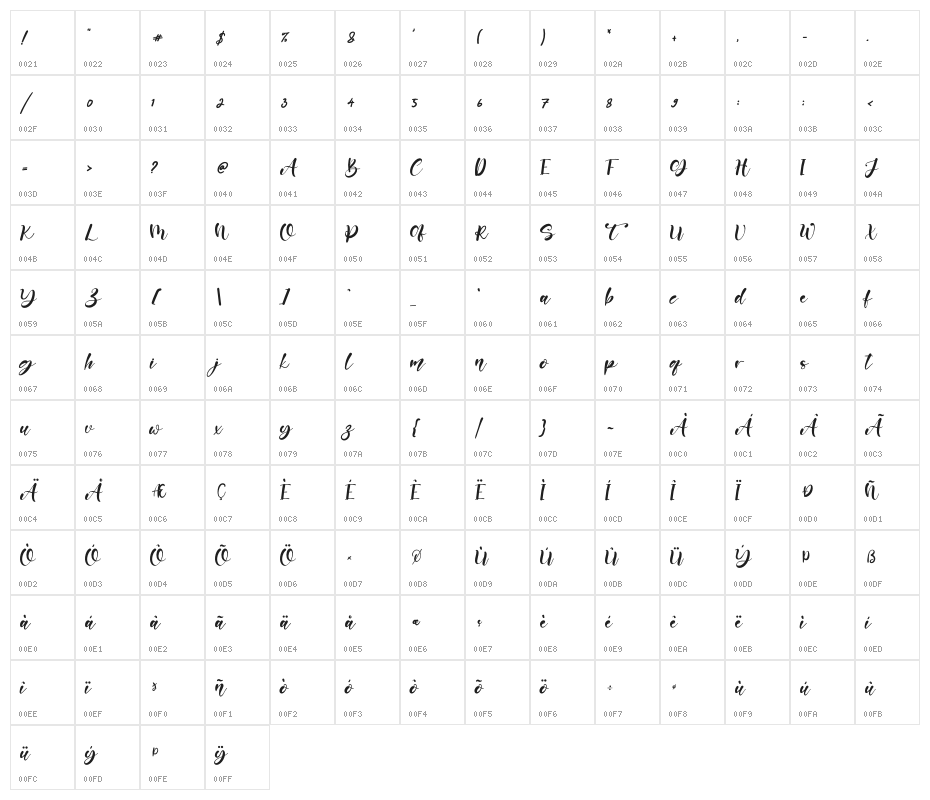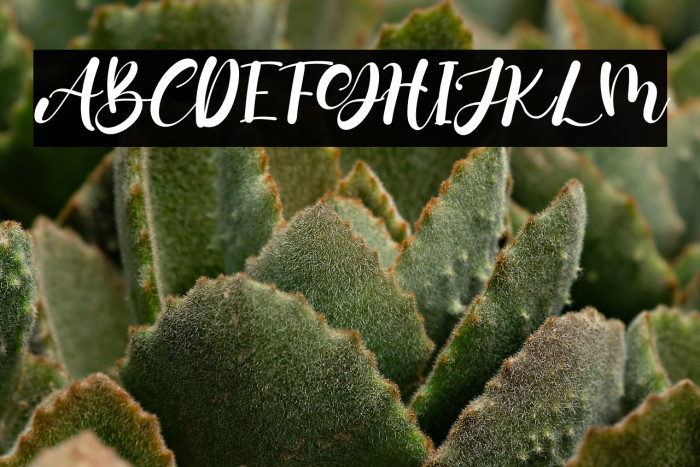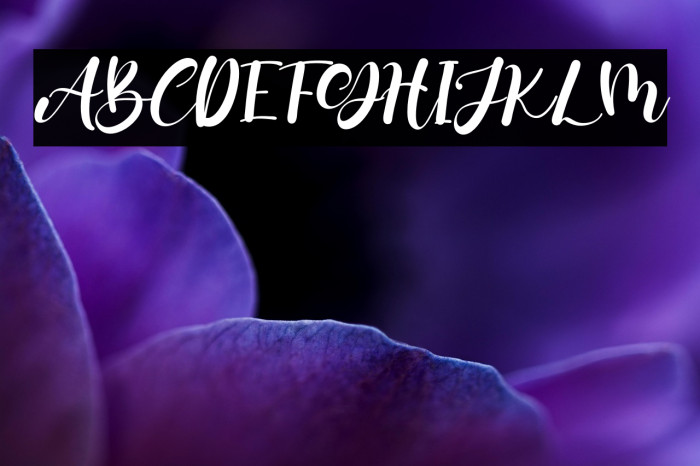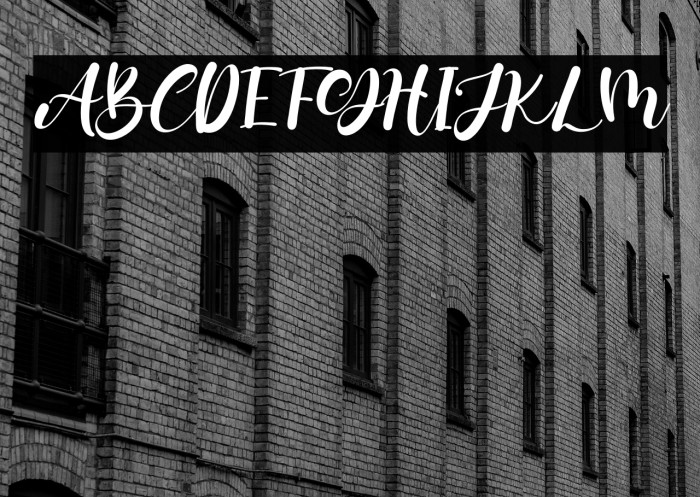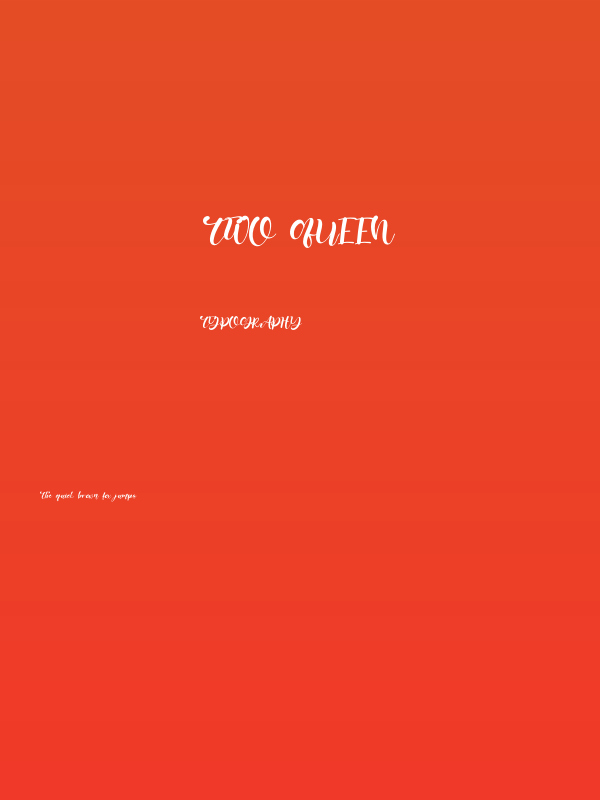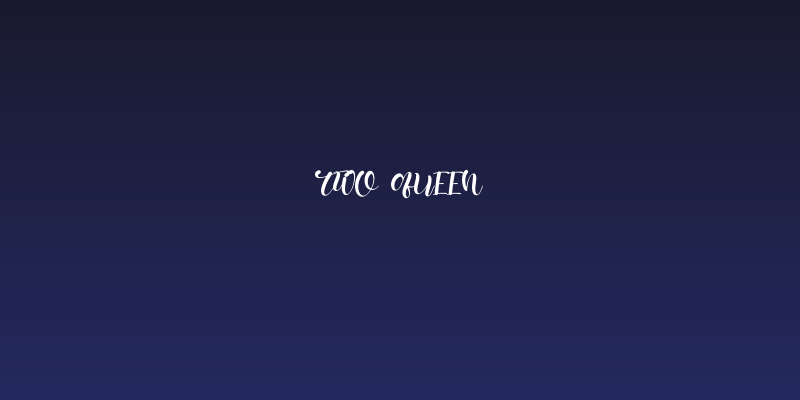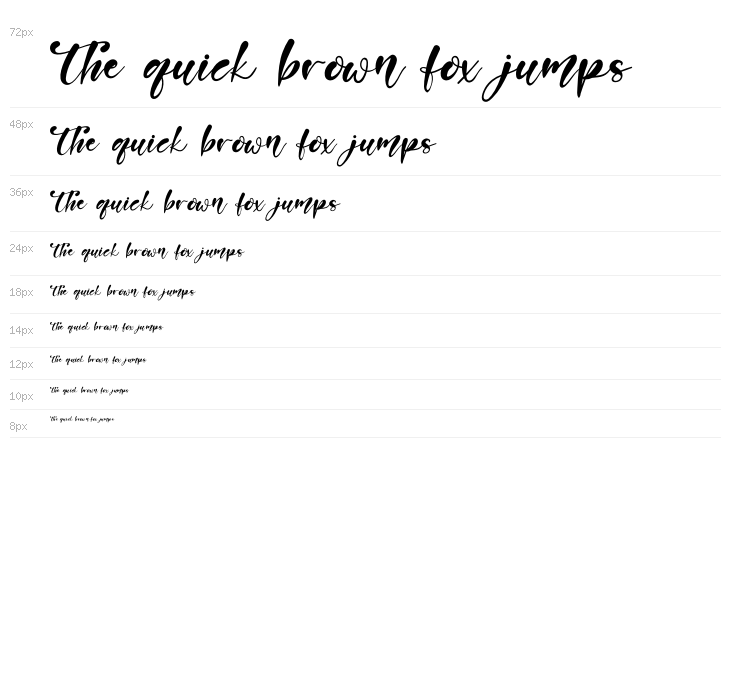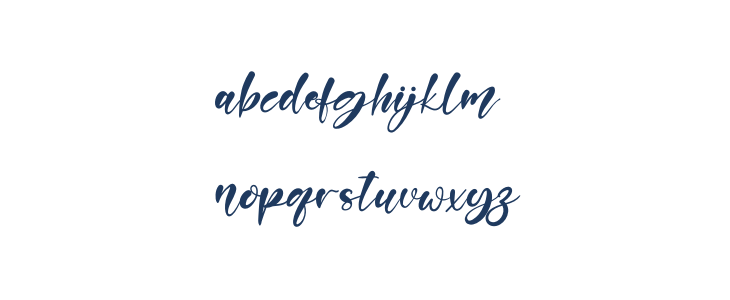
Two Queen Font
Two Queen Description
This font exudes a lively and elegant script style, characterized by its fluid and cursive strokes. The uppercase letters are bold and sweeping, with a distinct flair that adds a touch of sophistication. The lowercase letters maintain a consistent flow, enhancing readability while preserving the artistic flair. Numbers and special characters are crafted with the same attention to detail, ensuring a cohesive look across all text elements. The overall design is both decorative and functional, making it suitable for a variety of creative applications.
| Use Case | Logos, Invitations, Decorative text |
| Proposed Projects | Ideal for wedding invitations, greeting cards, branding projects, and elegant signage. |